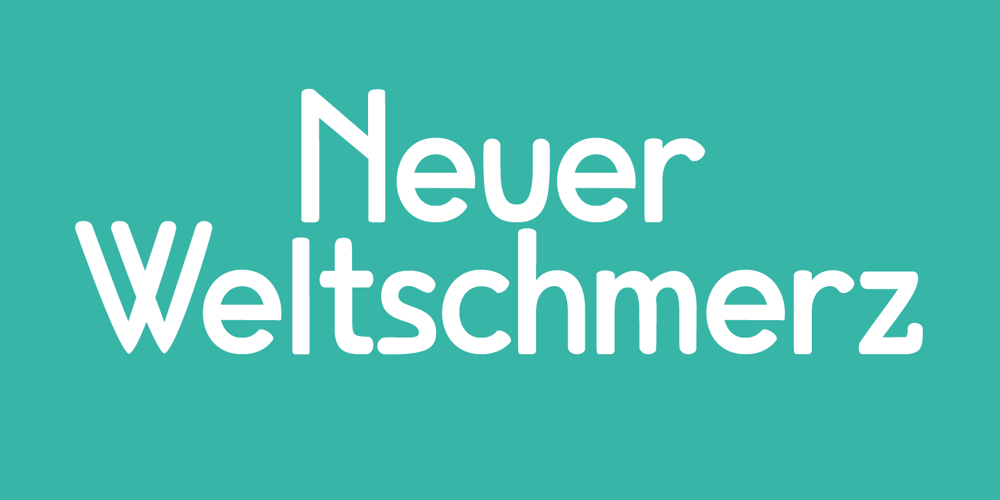
Neuer Weltschmerz Font Family was designed by David Kerkhoff and published by Hanoded. Neuer Weltschmerz contains 2 styles and family package options. About 7 years ago, I released a beautiful (imho) Art Deco inspired font called Weltschmerz. Weltschmerz was an all-caps font and I always wanted to do a lower case version as well. But as things so often go in life, I never found the time and forgot about it. Some time ago, I ‘rediscovered’ my good old Weltschmerz font and remembered that I wanted to create a lower case version. Without further ado: here is Neuer Weltschmerz (‘New Weltschmerz’). I redid the whole font, better kerning, better spacing, better looks… and with a proper lower case! I did keep the original handwritten look intact – because, well, it IS hand made!